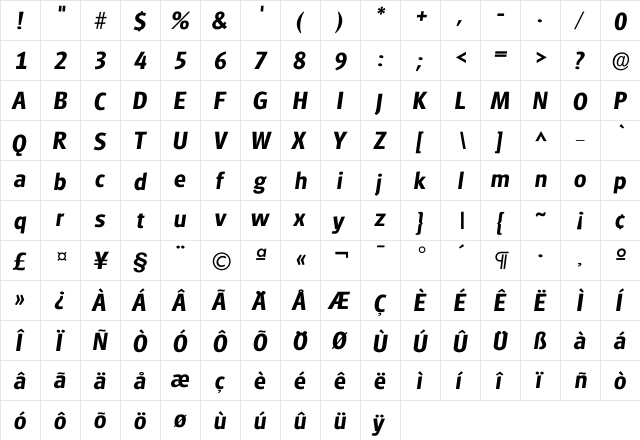
Iglasgow DemiBold
Design Context for Iglasgow Typeface
Iglasgow is a composed and adaptable typeface that performs quietly and consistently across a wide range of design contexts. The heavy weight commands attention and anchors typographic hierarchies.